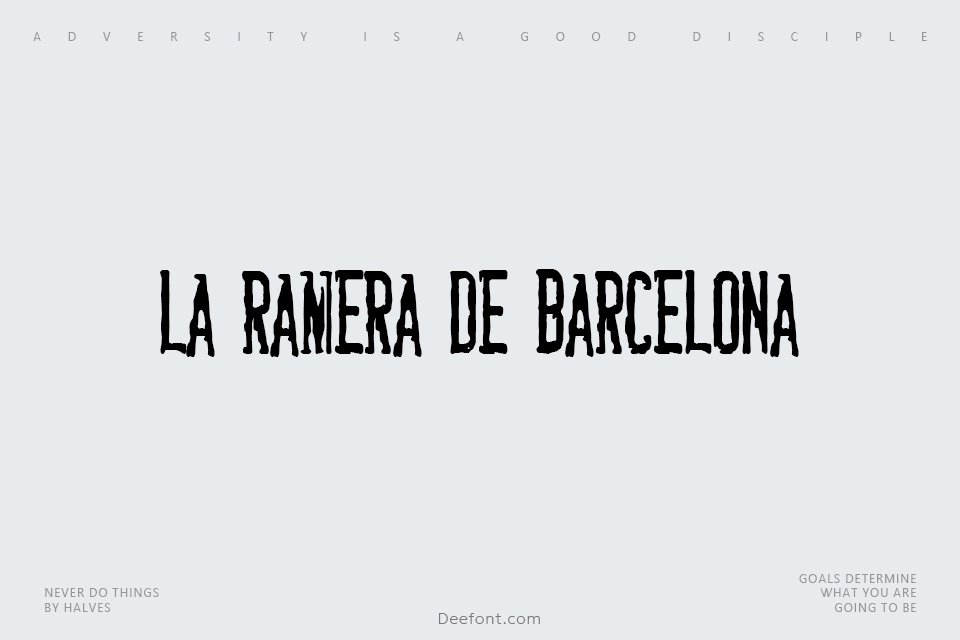
La Ramera de Barcelona Font
La Ramera de Barcelona is a rugged, distressed display font with a bold, hand-crafted vintage aesthetic featuring uneven edges and impactful presence. Designed by Spanish typographer Woodcutter, this decorative typeface evokes rebellious spirit and vintage charm, making it ideal for posters, album covers, logos, and edgy branding projects that demand attention-grabbing designs with a distinctive bold statement.